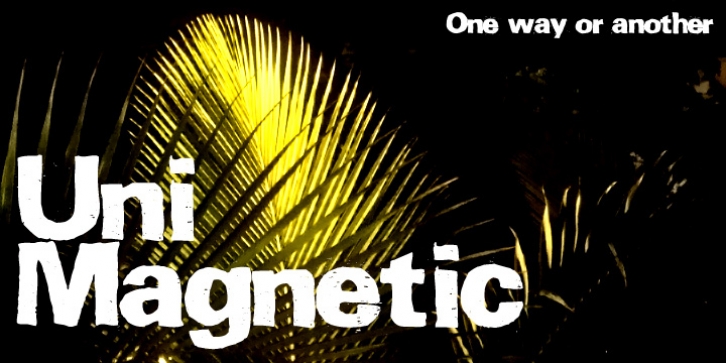
Uni Magnetic was designed by Dennis Shinobi and published by Substance. Uni Magnetic contains 1 style.
Hand drawn, photocopied, scanned, printed and rescanned x 3.